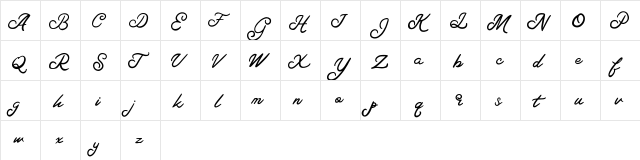
George FREE Regular
| Foundry | Vunira Desgin |
Design Context for George FREE Typeface
George FREE is a composed and adaptable typeface that performs quietly and consistently across a wide range of design contexts.